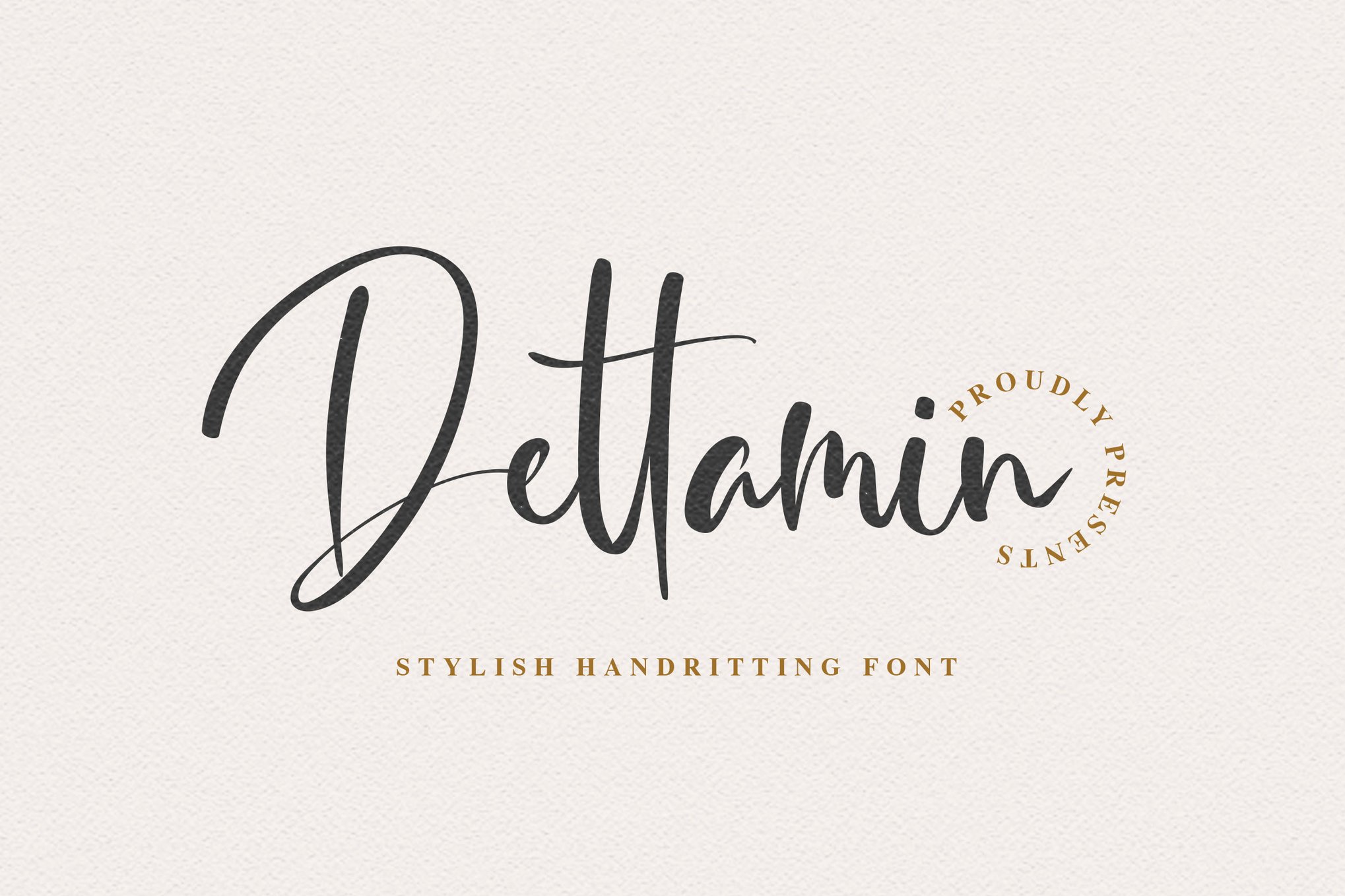
Dettamin - Stylish Handwriting Font
Dettamin - Stylish Handwriting Font is perfect for luxury brand signatures, high-end fashion labels, exclusive invitations, premium product packaging, sophisticated logos, and upscale restaurant branding. This refined typeface excels in boutique marketing materials, artistic portfolios, editorial headlines, and any application where elegant handwriting meets contemporary style and sophistication.
What makes Dettamin - Stylish Handwriting Font so exciting is its perfect fusion of natural handwriting flow with designer precision and style. The font captures the spontaneous beauty of skilled penmanship while maintaining consistent elegance throughout every character. Its sophisticated stroke variations and refined letter connections create an immediate impression of luxury and artistic refinement that elevates any design project.
Dettamin - Stylish Handwriting Font comes in a stylish family including Regular, Light, Medium, Bold, and Signature weights. Each style features complete uppercase and lowercase character sets, elegant punctuation, refined numerals, and decorative flourishes. The font family also includes contextual alternates, stylistic swashes, and premium ligatures that provide designers with extensive customization options for creating truly unique compositions.
This exceptional typeface represents the pinnacle of handwritten elegance in digital form. Dettamin - Stylish Handwriting Font Free Download empowers creative professionals to add authentic sophistication and personal touch to their most prestigious projects. Whether you're developing luxury brand identities, creating high-end marketing materials, or designing exclusive event invitations, this font delivers unmatched elegance and style.
The font's refined aesthetic makes it particularly suitable for fashion brands, luxury services, art galleries, and premium lifestyle businesses. Its superior legibility ensures that Dettamin - Stylish Handwriting Font performs beautifully in both large display applications and detailed text settings. The font's ability to convey exclusivity and artistic sophistication makes it an essential tool for projects requiring the perfect balance of handwritten authenticity and professional polish.